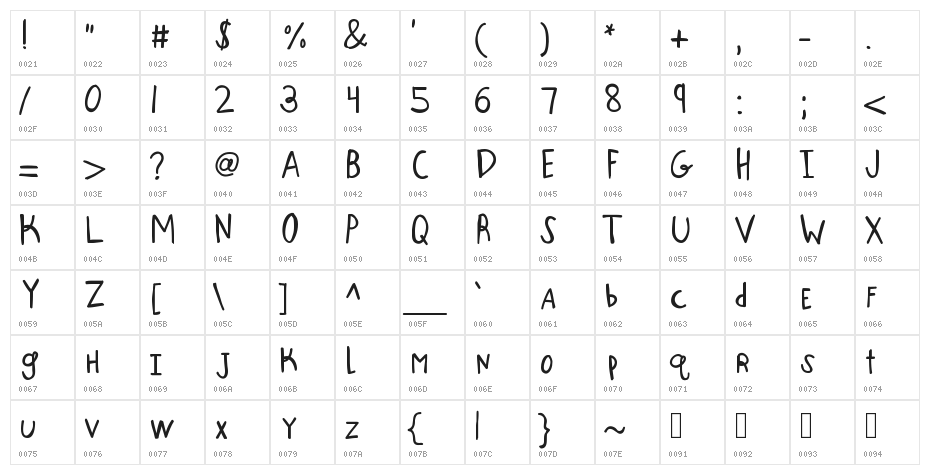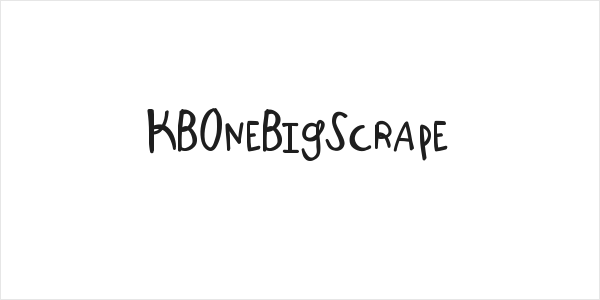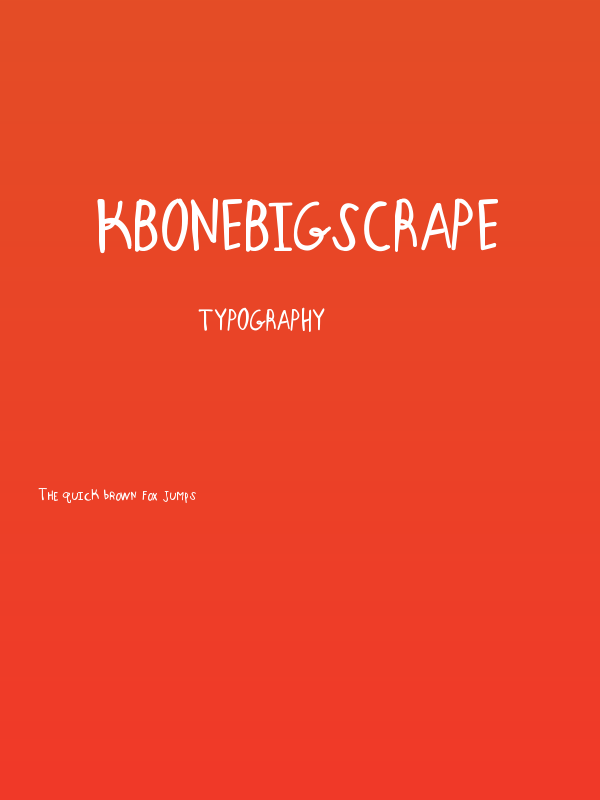
KBOneBigScrape Font
KBOneBigScrape Description
This font features a playful and informal handwritten style, characterized by its uneven strokes and casual appearance. The letters have a slightly irregular baseline, adding to the whimsical and friendly feel. The uppercase and lowercase letters are distinct, with the uppercase being slightly taller and more pronounced. Numbers and special characters maintain the same playful aesthetic, making the font versatile for various creative projects. Its overall appearance is approachable and fun, suitable for designs that aim to convey a sense of warmth and personality.
| Overall Style | Casual, Playful |
| Use Case | Logos, Headlines, Informal text |
| Proposed Projects | Ideal for greeting cards, children's books, playful branding, and casual invitations. |